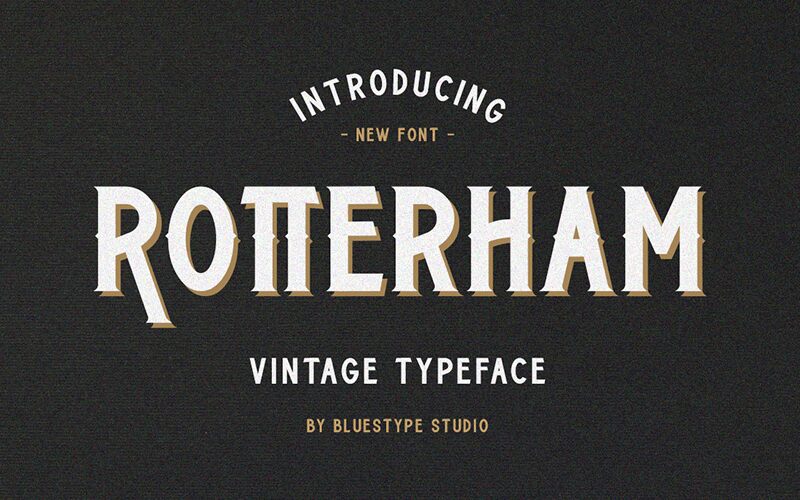
Rotterham
Rotterham is a condensed retro font designed by Jefri Dwi Alfatah. It's perfect for projects that require a bold statement, as it packs a punch with its distinctive and eye-catching style. It's ideal for headlines, logos, posters, product packaging and other creative designs. Use its unique look to stand out from the crowd and make an impression!